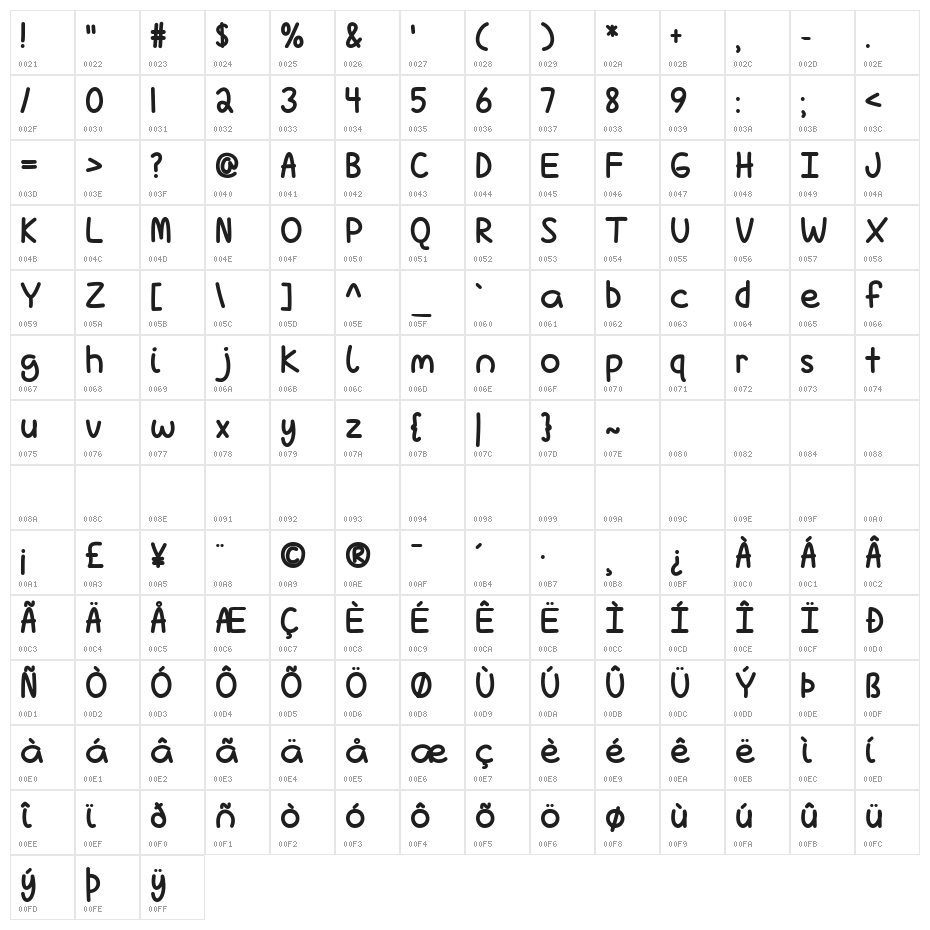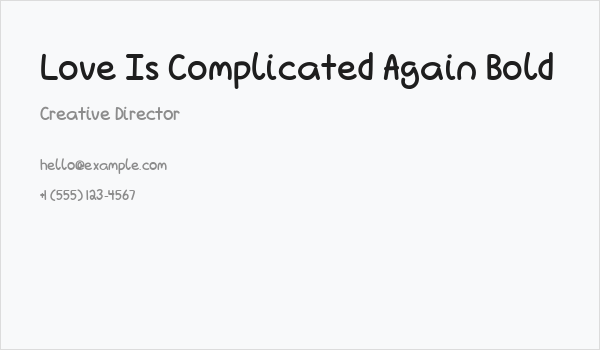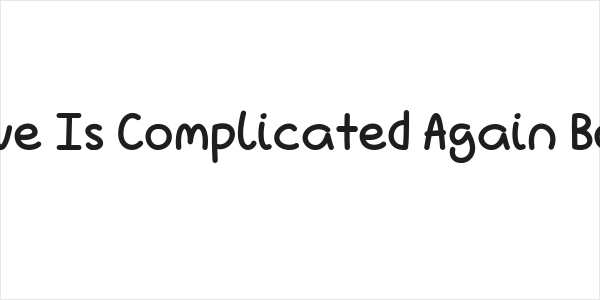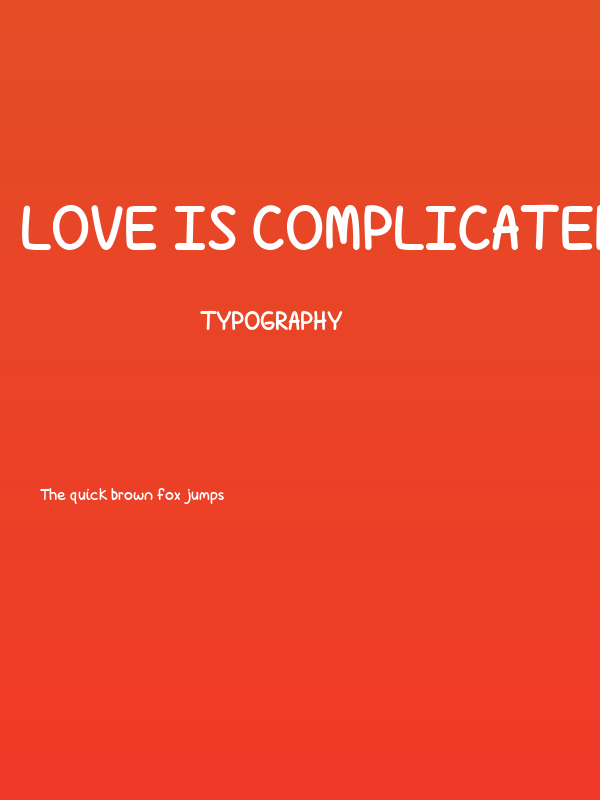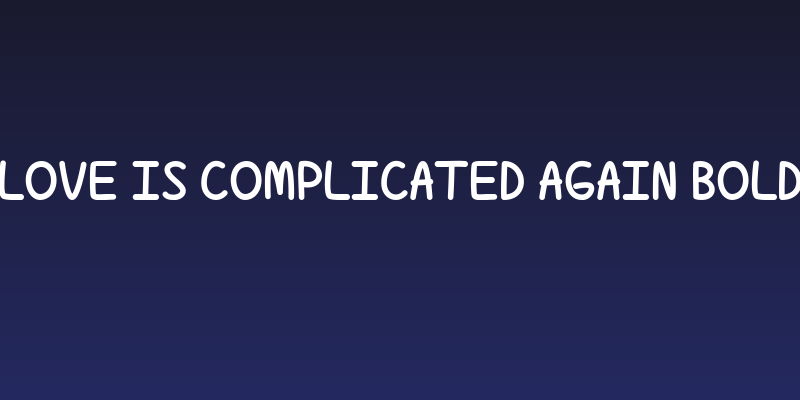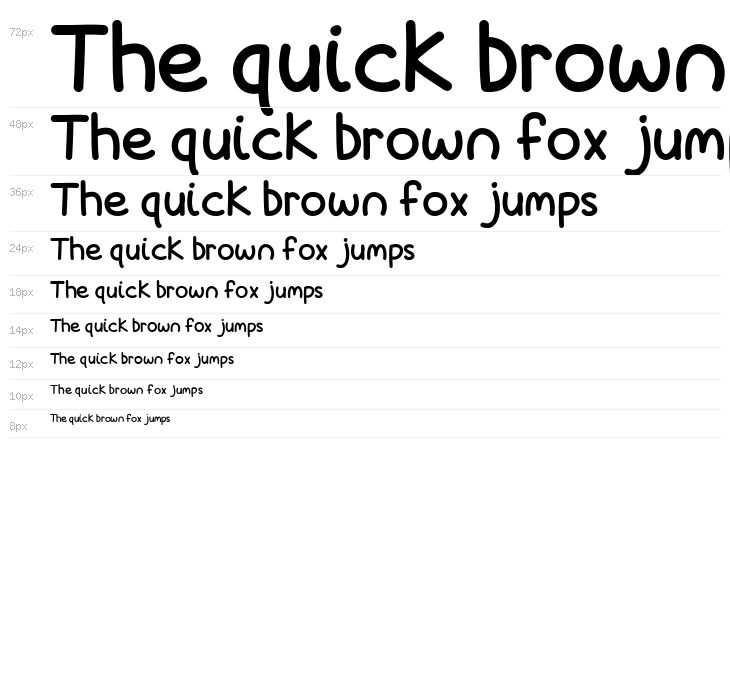
Love Is Complicated Again Bold Font
Love Is Complicated Again Bold Description
This playful and bold font features rounded, thick strokes that give it a friendly and approachable appearance. The characters are slightly irregular, adding a whimsical touch that enhances its charm. The uppercase and lowercase letters maintain a consistent style, with rounded edges and a uniform stroke width. Numbers and special characters follow the same design principles, ensuring a cohesive look across all elements. The font's informal style makes it ideal for projects that require a fun and engaging aesthetic.
| Proposed Projects | Perfect for children's books, playful branding, greeting cards, and casual invitations. |